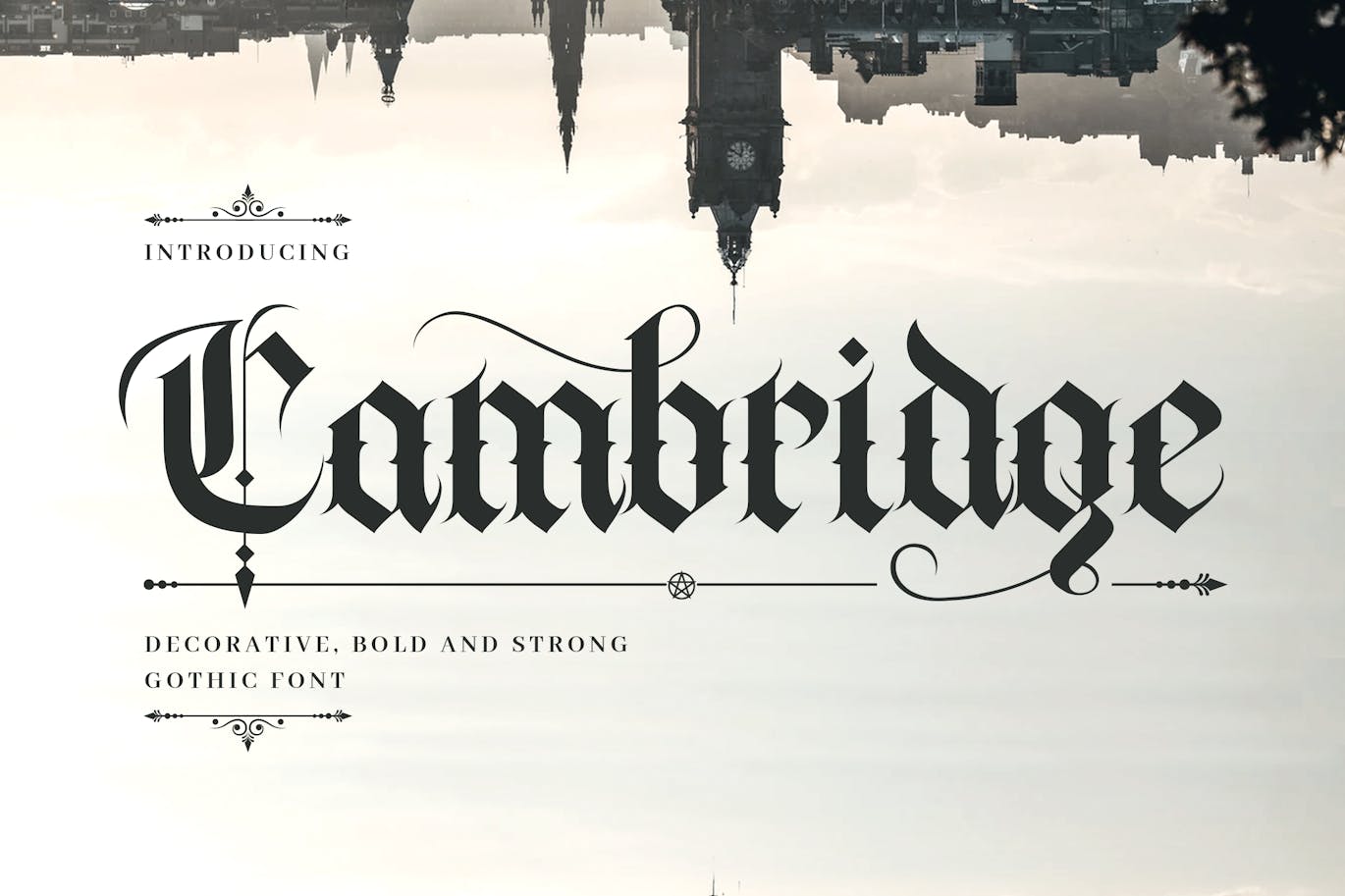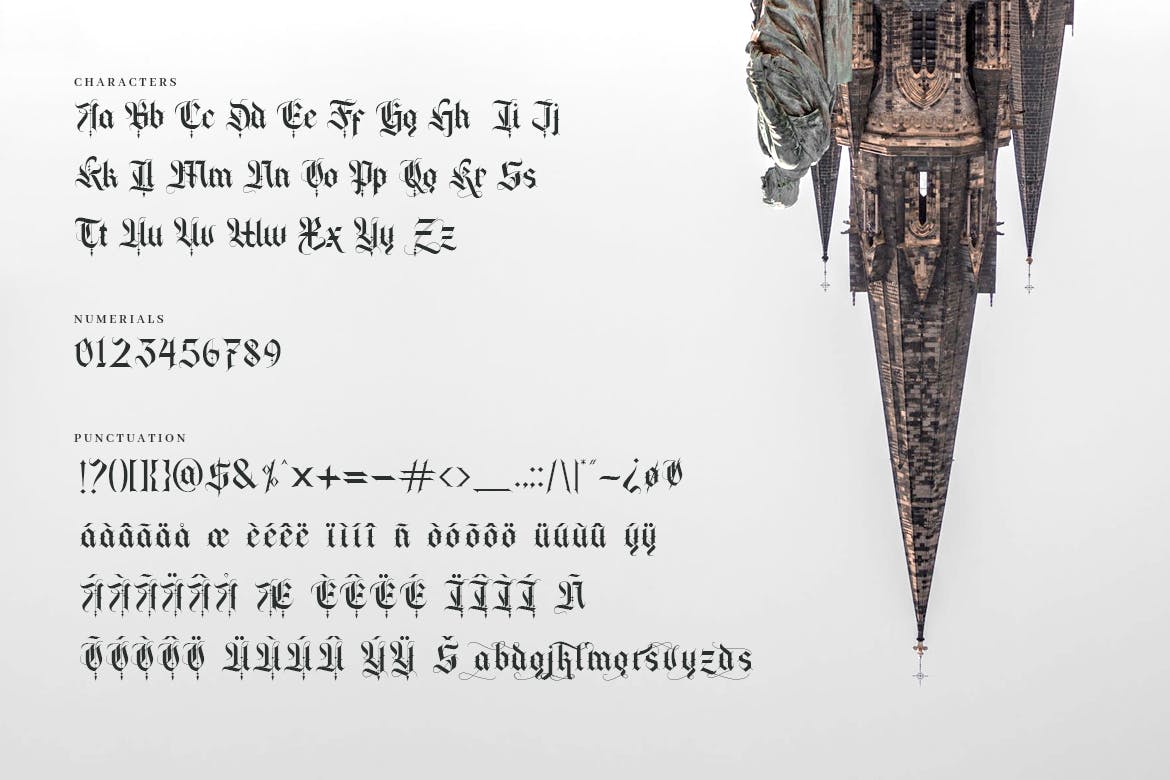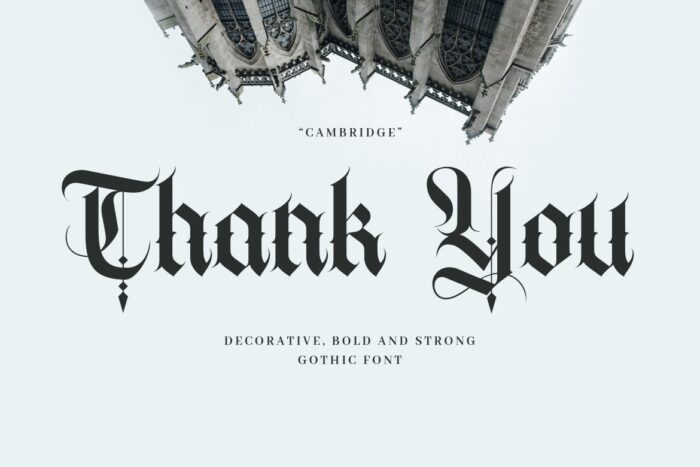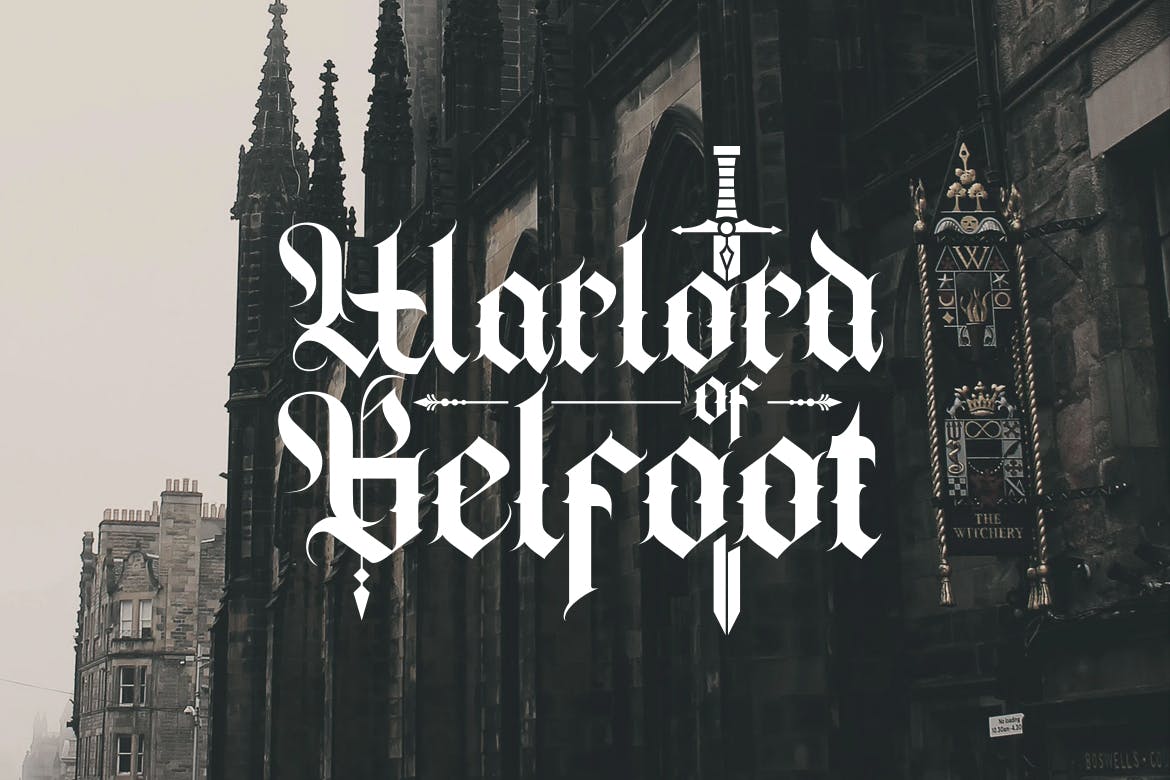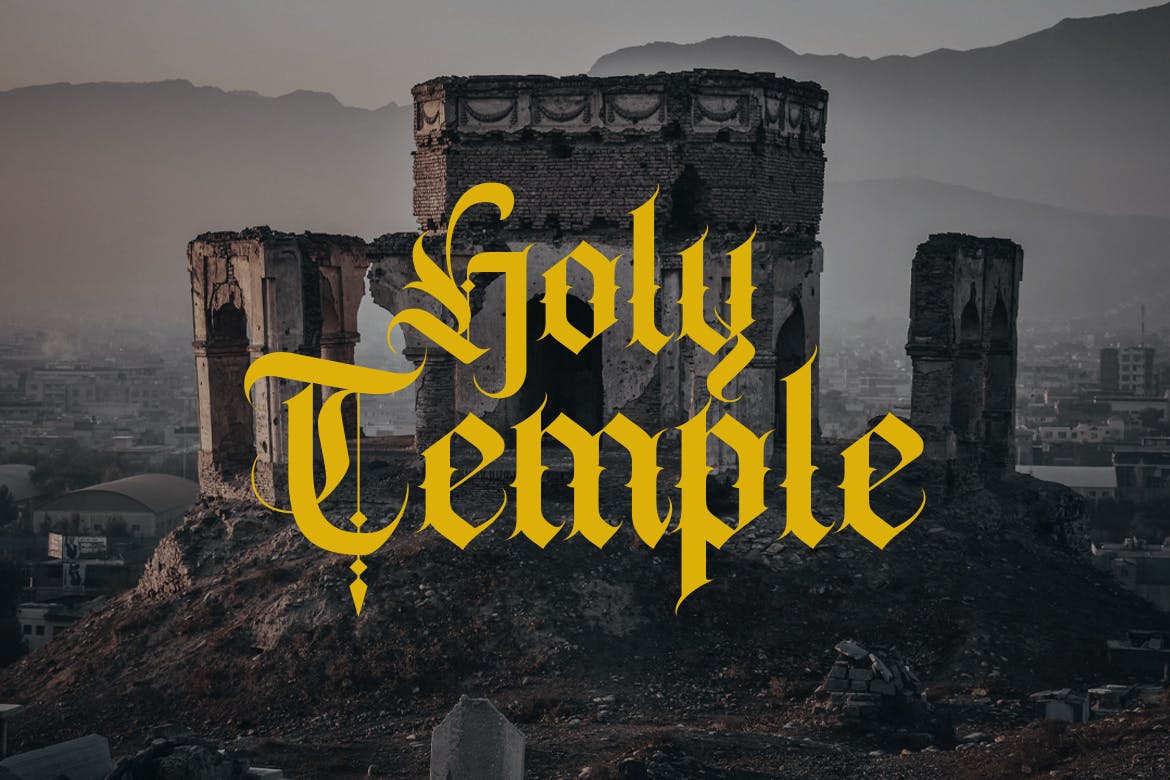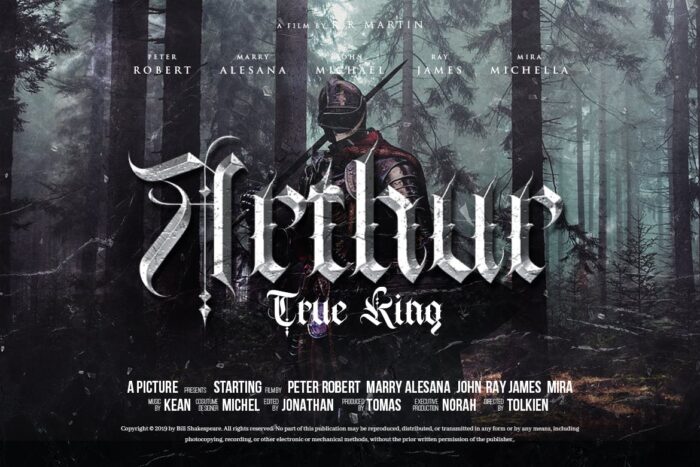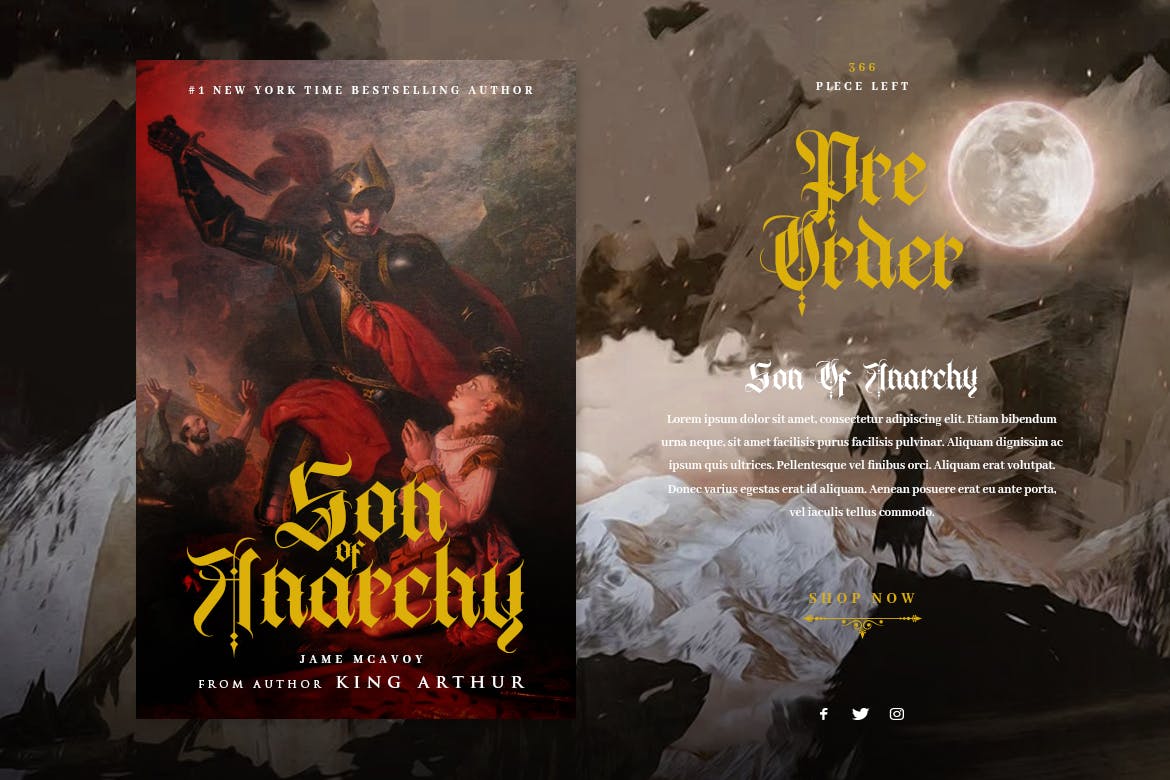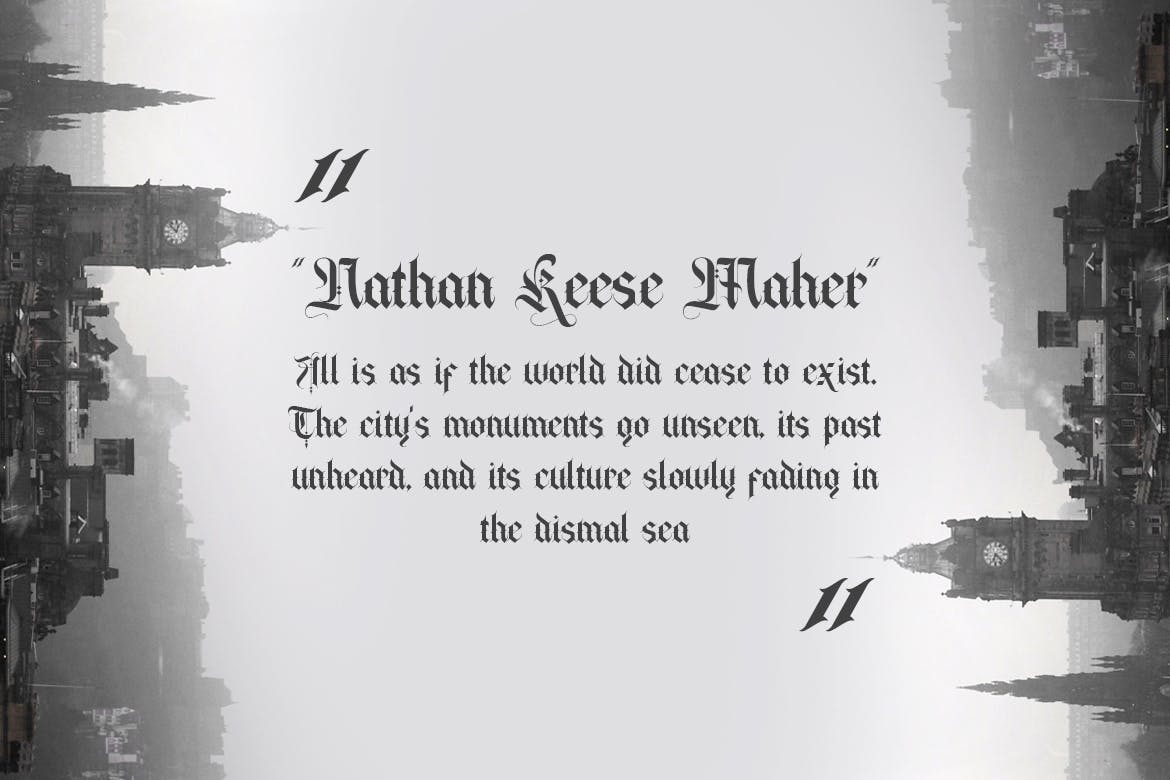
Introducing Cambridge font. Are you looking for a bold handlettering decorative font that has a medieval gothic feeling? We can help! Try to download our Cambridge font. Suitable to use for any occasion such as book, logo, print, game, event, music, invitation and others 🙂